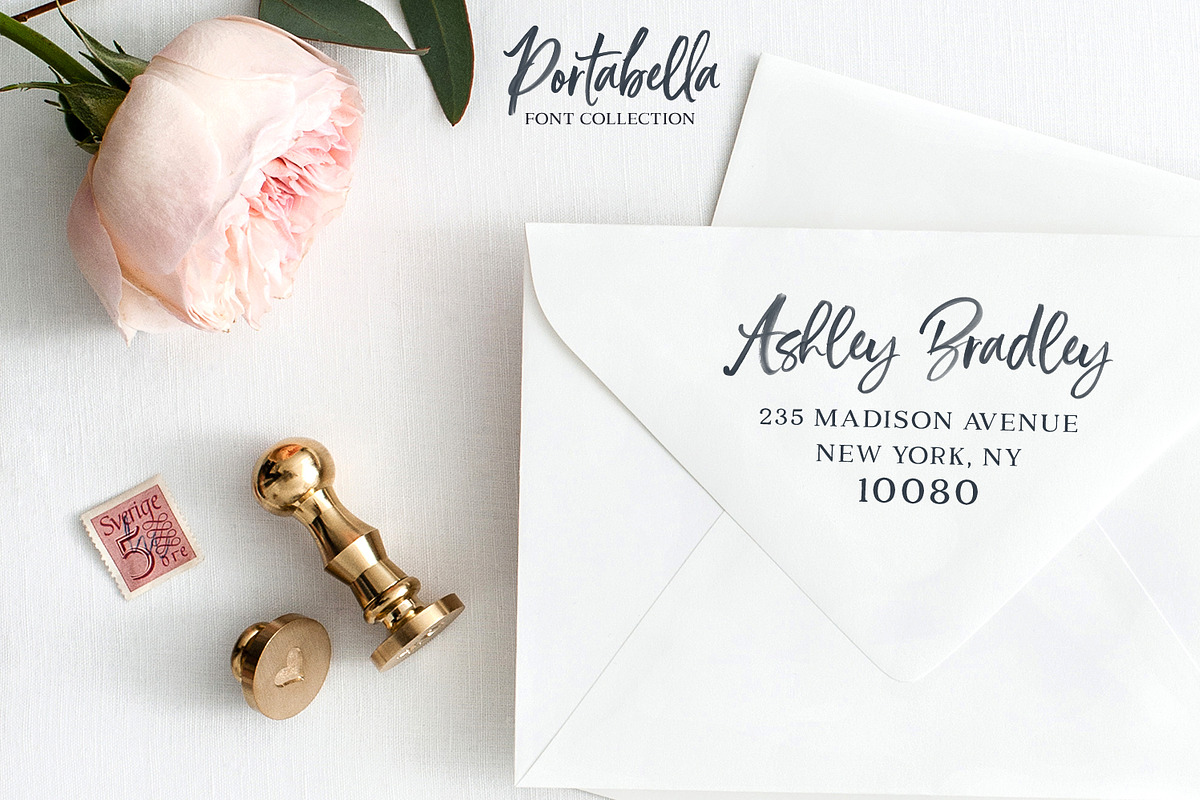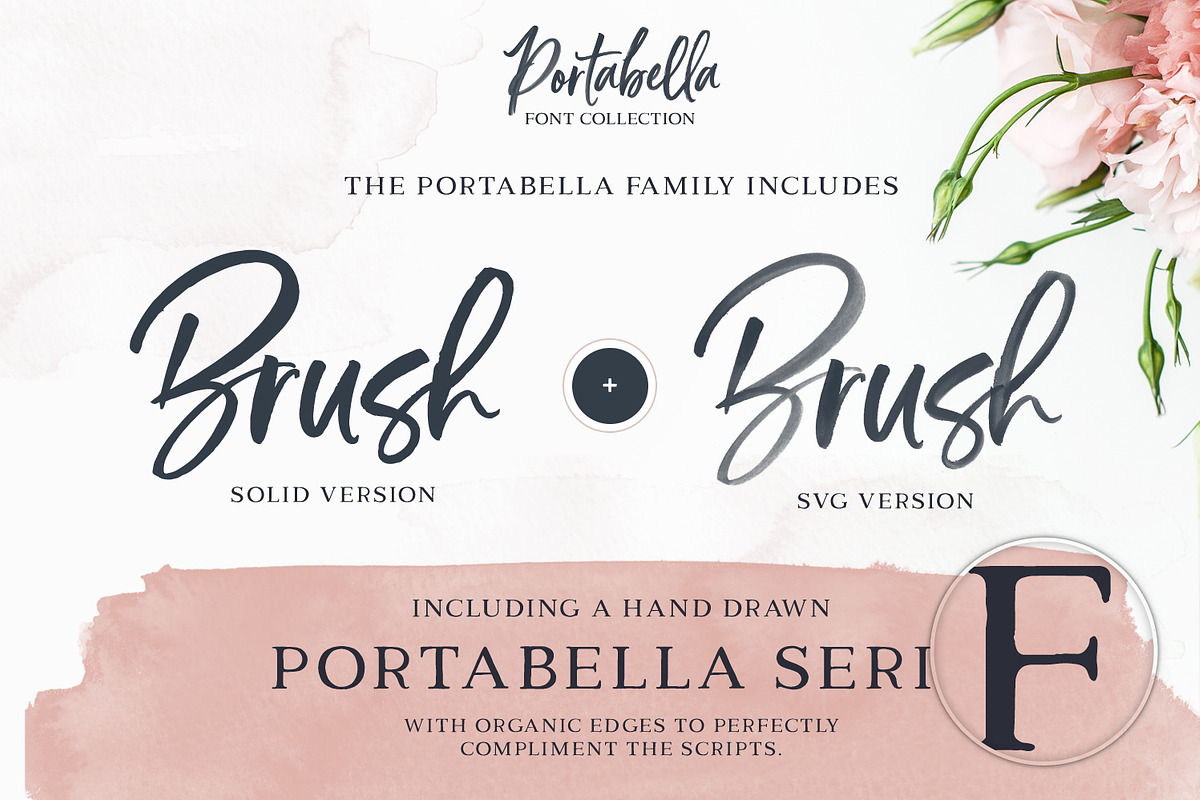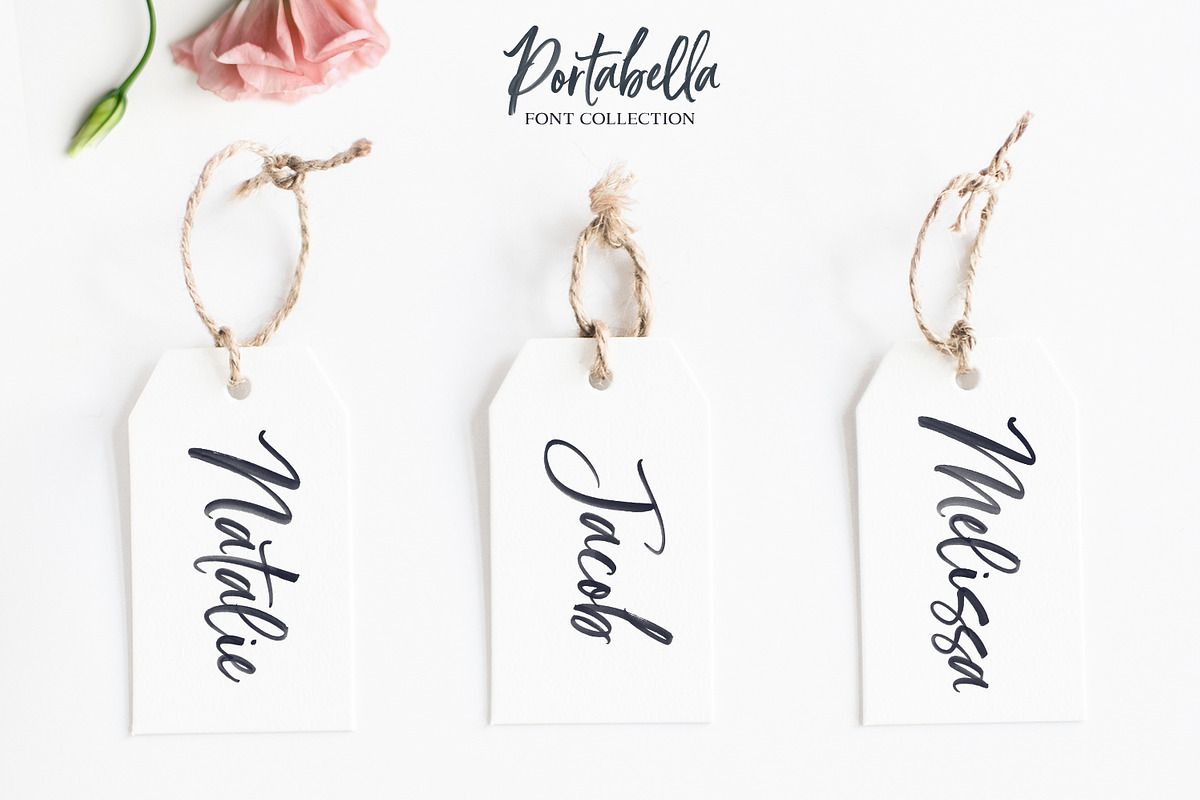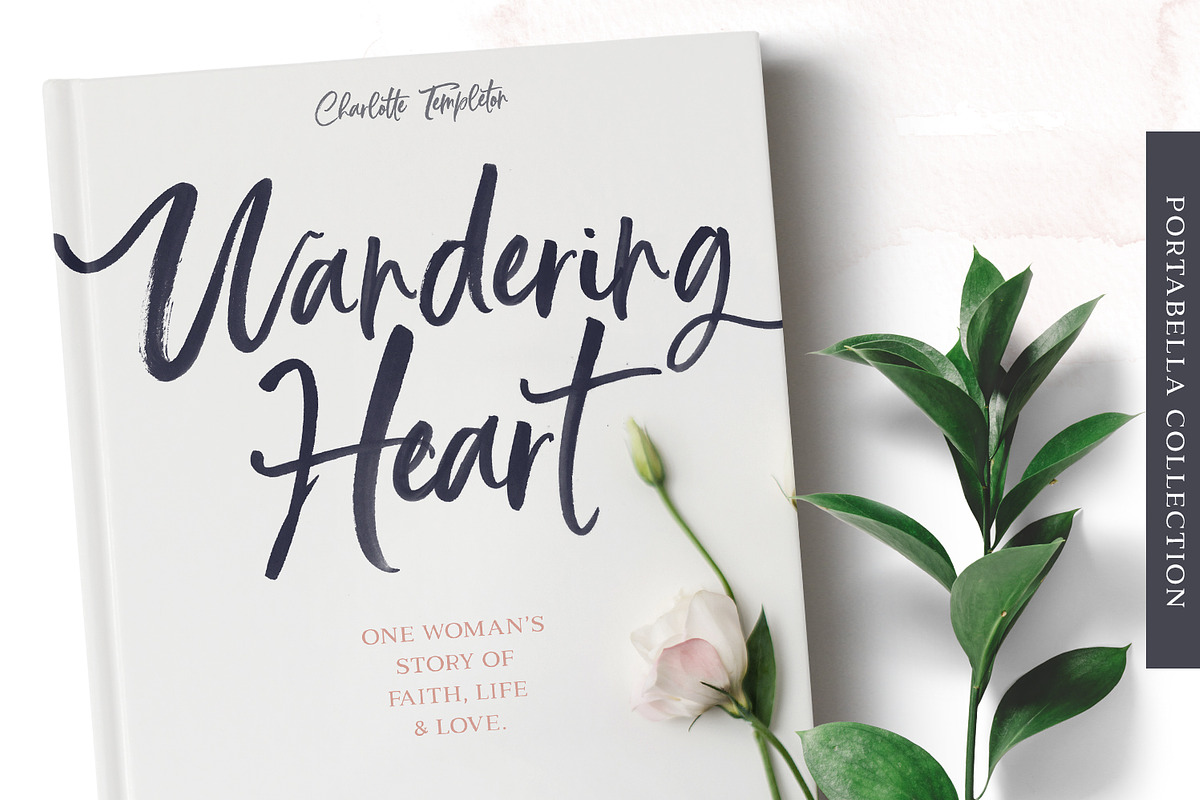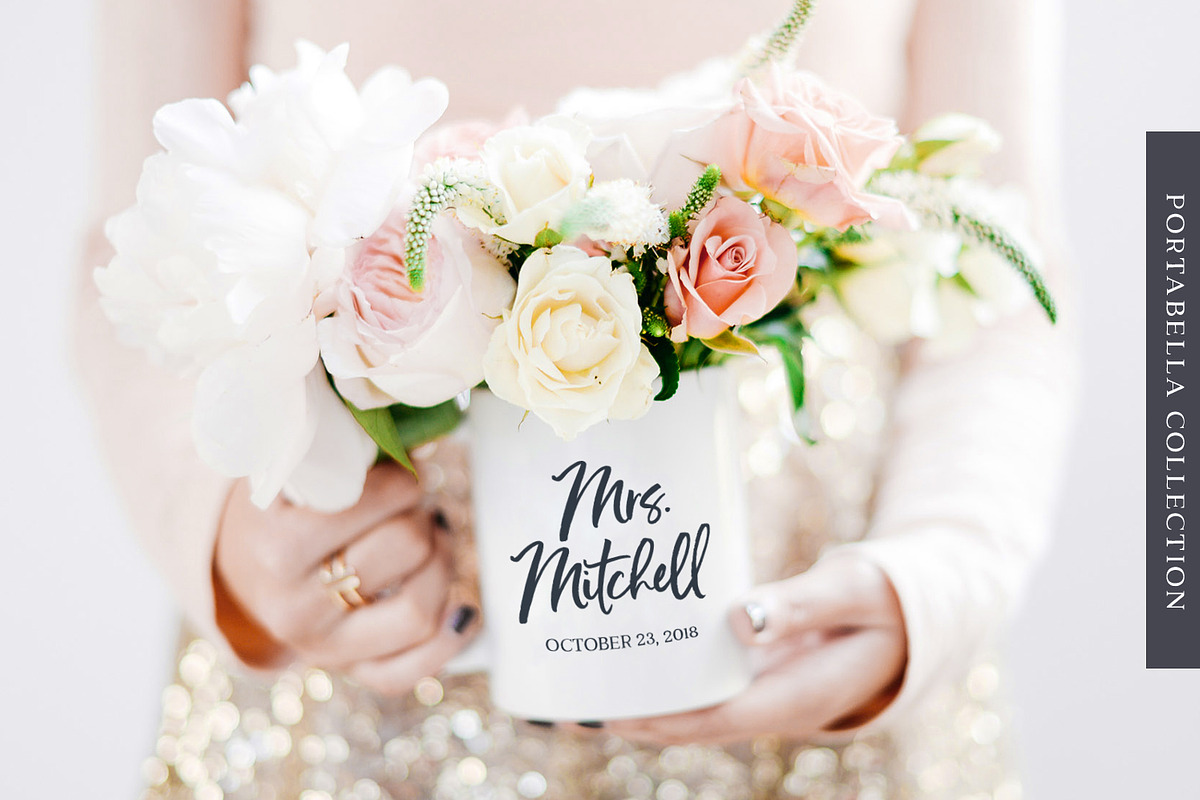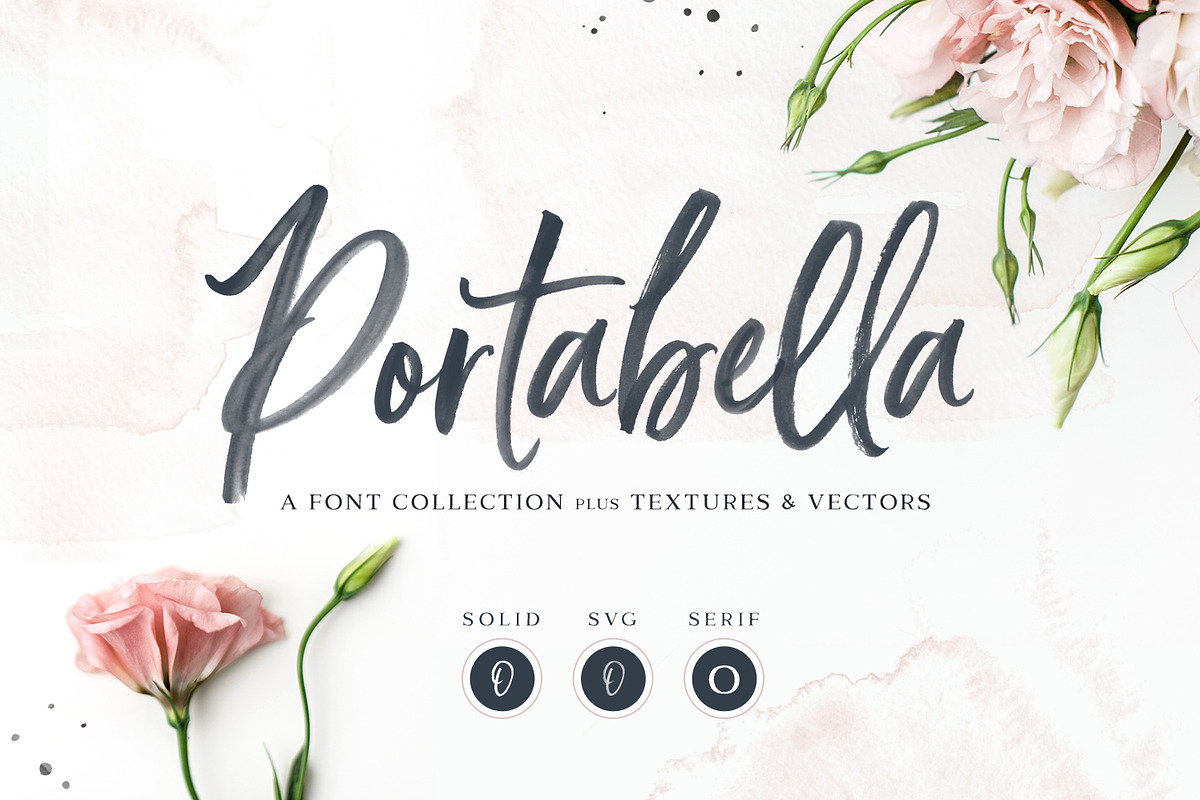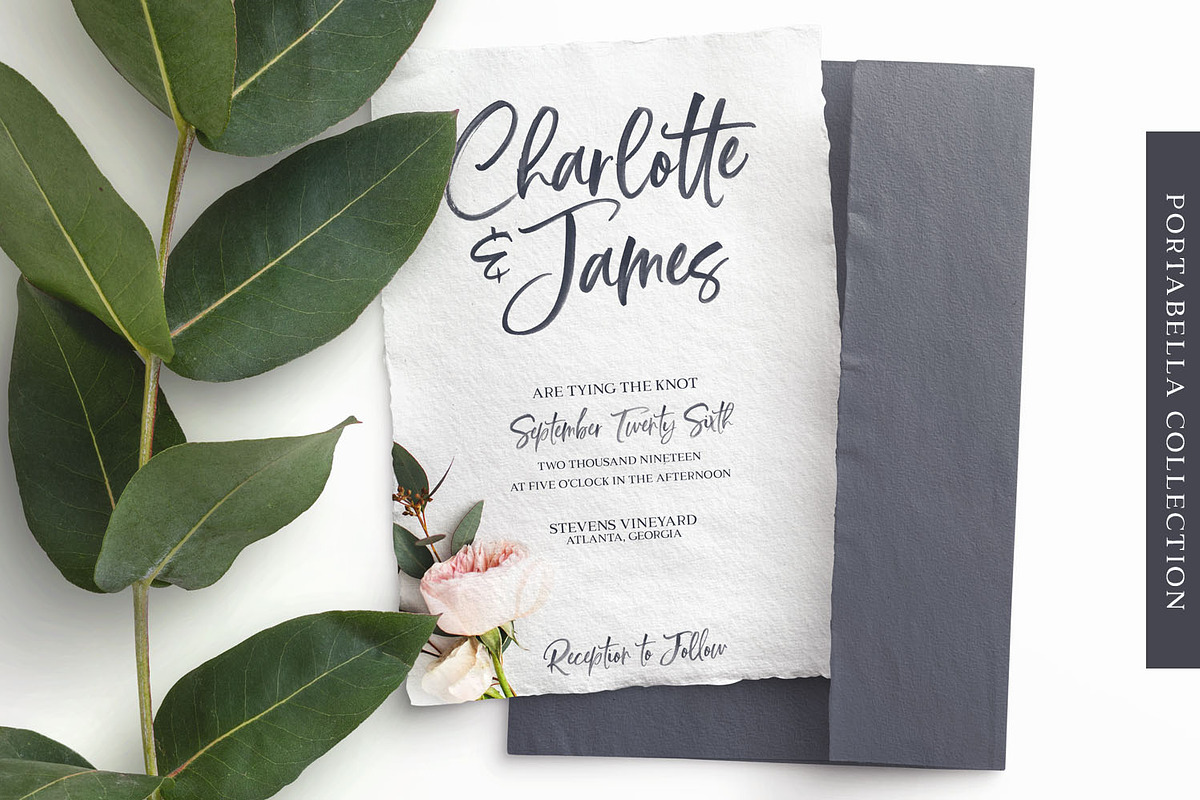
1.) Portabella Solid (OTF) - A traditional hand-painted and vector-based font, which includes ligatures, Western European Language Support and an elegant, hand-brushed texture.
2.) Portabella Serif (OTF) - A hand drawn serif with subtly textured edges for a perfect pairing with Portabella Script (and Portabella SVG).
3.) Portabella SVG (OTF) - A bonus transparent SVG style, to create gorgeous, realistic watercolor typography. With built-in texture, there's no need for Photoshop overlays or fancy filters. Just type and go!